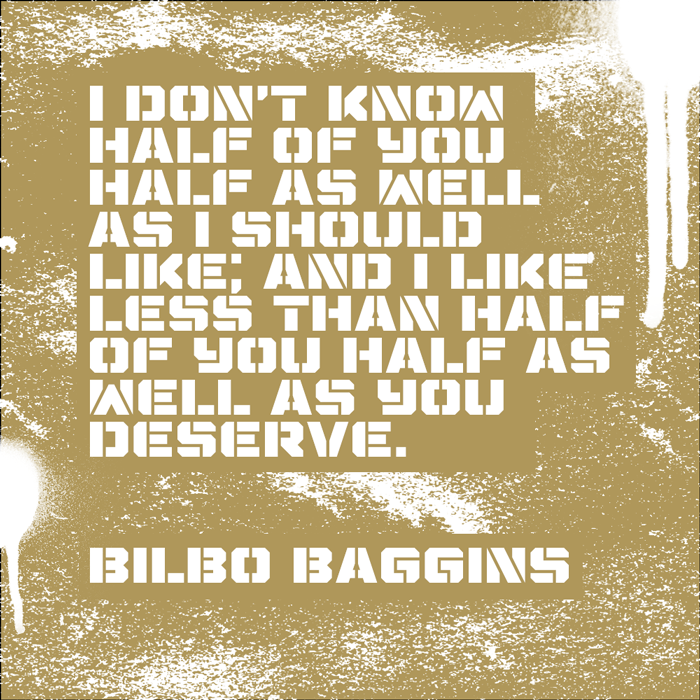
This is a much revised and extended version of OIL Stencil. Many glyphs have been refined or completely replaced, thanks to the new features of fontstruct. Extended Latin set, and Cyrillic alphabet has been added. I didn't like the original font name anymore and changed it to something politically neutral. Eriador: a large region in the northwest of Middle Earth.
I love these 'chunks'. The cut corners make it look less forbidding. :)
@Frodo I know versions and revisions haven't historically been top-picked but this is a real advance on the original and I'm a real fan of people going back and reworking their designs.
It actually looks stenciled, Great Job. Most "stencles' just look like letters with a gap in the middle, but yours doesn't.